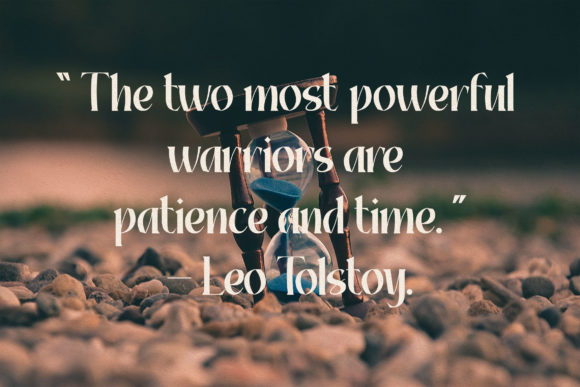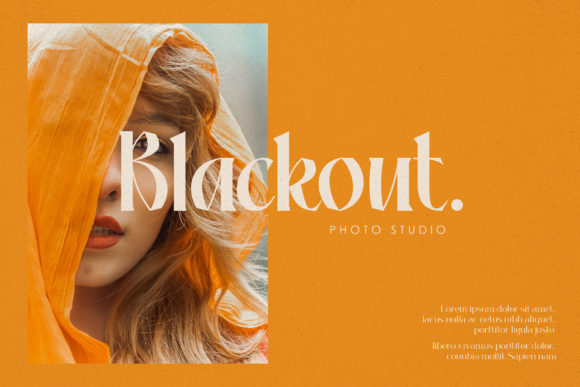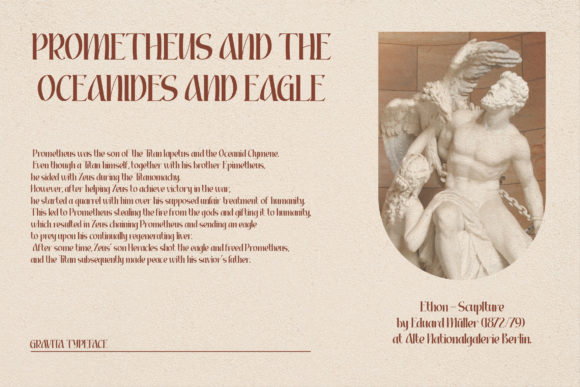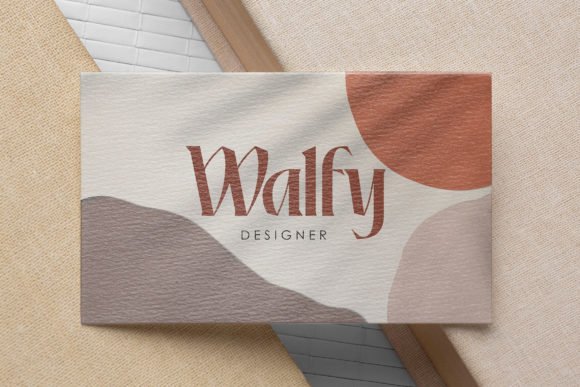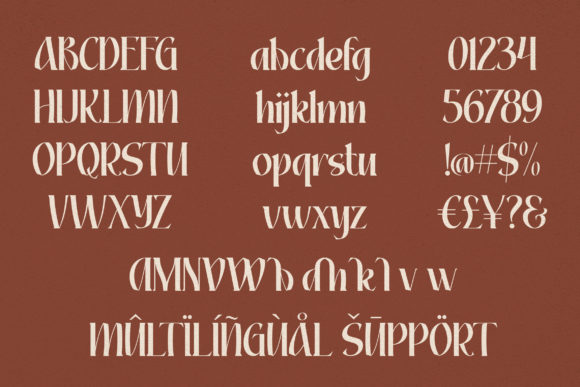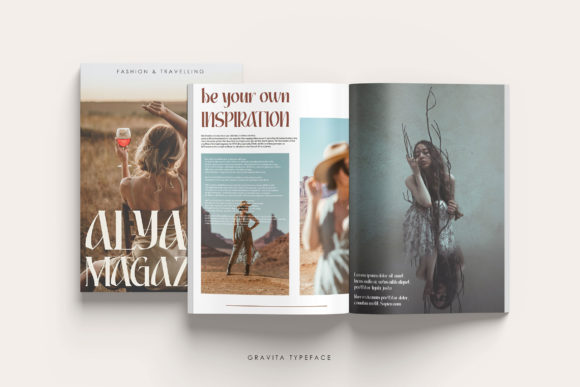
Introducing Gravita Font: Elevate Your Designs with a Unique Serif Style
In the world of typography, a good font can make all the difference in the success of a design project. Whether you’re a seasoned designer or a crafty DIY enthusiast, finding the right font can be a daunting task. That’s where Gravita Font comes in – a unique serif font that strikes the perfect balance between trendiness and timelessness.
What is Gravita Font?
Gravita is a carefully crafted serif font that boasts a distinctive character. Its design team aimed to create a font that would add a touch of sophistication and elegance to any project, without being too over-the-top or too bland. The result is a font that is both balanced and varied, making it perfect for a wide range of applications.
Key Features of Gravita Font
- Unique Serif Style: Gravita’s serif style is unlike any other. Its subtle flair and refined lines make it stand out from more traditional serif fonts.
- Balanced and Varied: The font’s stroke width is carefully calibrated to ensure that it’s not too thin or too thick. This balance makes Gravita highly legible and versatile.
- Trendiness with Timelessness: Gravita’s design is informed by current typography trends, yet its classic serif roots ensure it won’t go out of style anytime soon.
Who is Gravita Font for?
Gravita Font is perfect for:
- Graphic Designers: Looking for a font that will elevate their branding, advertising, and marketing materials.
- Web Designers: Seeking a font that will enhance the user experience and add a professional touch to their websites.
- Crafters and Makers: Creating handmade products, such as stationery, cards, and fabric designs, and wanting a unique font to add a personal touch.
- Artists and Illustrators: Looking for a font that will complement their artwork and add an extra layer of depth and meaning.
How to Use Gravita Font
Gravita Font can be used in a variety of ways, including:
- Branding and Logo Design: Use Gravita as a primary font or as a complement to your existing brand font.
- Print Materials: Add Gravita to your business cards, brochures, posters, and other print materials for a professional look.
- Web Design: Use Gravita as a web font to create a cohesive and engaging user experience.
- Crafting and DIY Projects: Incorporate Gravita into your handmade products, such as stickers, stamps, and fabric designs.
Why Choose Gravita Font?
With so many fonts available, why choose Gravita? Here are just a few reasons:
- Unique and Distinctive: Gravita’s serif style sets it apart from more common fonts.
- Highly Legible: Gravita’s balanced stroke width and clear letterforms make it easy to read.
- Versatile: Gravita can be used in a wide range of applications, from print to digital.
If you’re looking for a font that will add a touch of elegance and sophistication to your design projects, look no further than Gravita Font. Its unique serif style, balanced and varied design, and trendiness with timelessness make it the perfect choice for designers, crafters, and artists. Try Gravita Font today and elevate your designs to the next level!